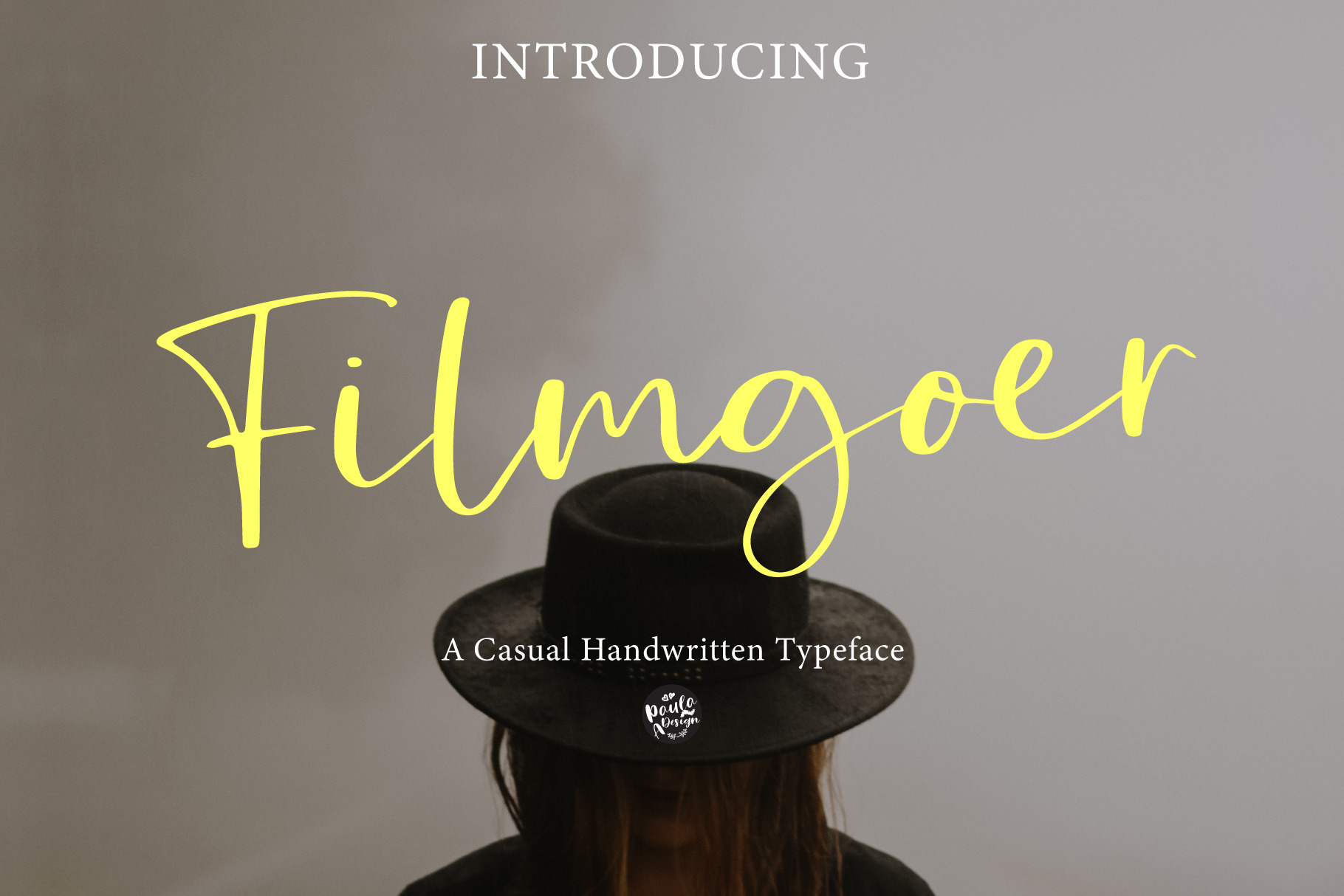
Filmgoer | Handwritten Font
Filmgoer is a casual script. This font is a perfect script designed for all feminine logo projects, printed quotes, lovely wedding invitation cards, Brand, blog posts, and more completely beautiful.
"Filmgoer" Regular (uppercase, lowercase letters, numbers, and punctuation)